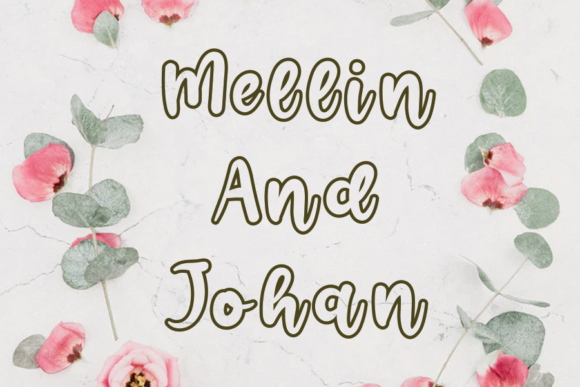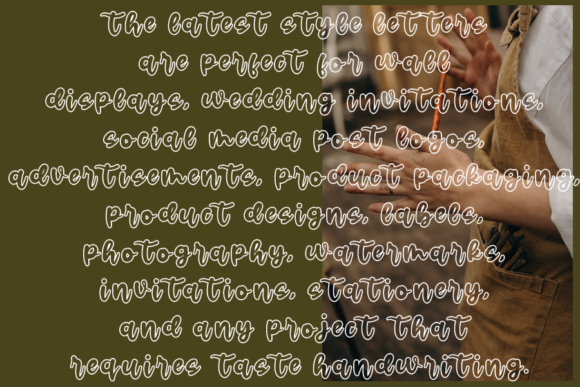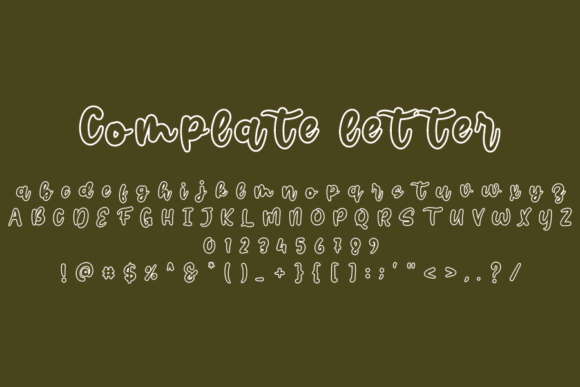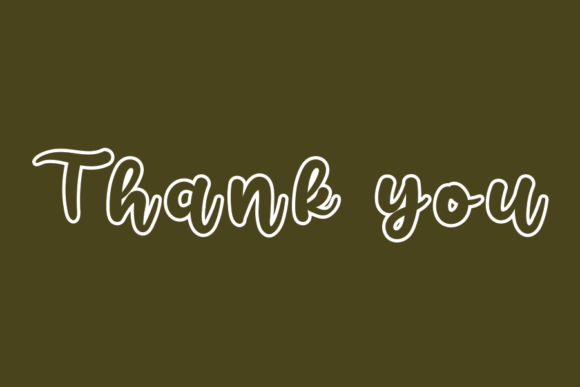
Bollmely Font: Elevate Your Design with Classic Elegance and Modern Twist
In the world of typography, few fonts manage to strike a balance between classic elegance and modern flair. Bollmely, however, achieves this delicate balance with ease, making it a versatile and sought-after font for designers and crafters alike. Inspired by the timeless beauty of classic typography, Bollmely brings its own unique style to the table, ensuring that any design project it touches is elevated to new heights.
The Inspiration Behind Bollmely
Bollmely’s roots lie in the rich history of typography, where classic fonts have been a cornerstone of design for centuries. The creators of Bollmely sought to capture the essence of these traditional fonts while infusing them with a modern sensibility. The result is a font that pays homage to the past while firmly planting itself in the present.
This blend of old and new is what sets Bollmely apart from other fonts. Its classic inspiration is evident in its elegant lines and sophisticated appearance, making it perfect for projects that require a touch of refinement. At the same time, its modern twist ensures that it remains fresh and relevant, capable of standing alongside contemporary design trends.
One of the standout features of Bollmely is its incredible versatility. Whether you’re working on a web design project, creating print materials, crafting moving images, or anything in between, Bollmely is up to the task. Its adaptability makes it an invaluable asset for designers who work across multiple mediums or who need a font that can seamlessly transition from one project to the next.
For web designers, Bollmely’s clean and clear structure ensures that it remains legible even at smaller sizes, making it perfect for body text or headings. In print, its rich and detailed appearance truly shines, adding a level of sophistication to any material it’s used on. When it comes to moving images, Bollmely’s elegant flow and dynamic presence make it a compelling choice for titles, subtitles, and other on-screen text.
Bollmely in Design Projects
So, what makes Bollmely an excellent choice for design projects? The answer lies in its ability to enhance and complement a wide range of design aesthetics. Whether you’re going for a minimalist look, a vintage vibe, or a modern edge, Bollmely fits right in. Its neutral yet distinctive style allows it to support and elevate the overall design without overpowering it.
For designers, this means that Bollmely can be a go-to font for a variety of projects. Need a font for a luxury brand’s logo? Bollmely’s got you covered. Looking for something that will add a touch of class to a website’s header? Bollmely is up to the task. Its wide range of applications makes it a valuable addition to any designer’s toolkit.
Crafting with Bollmely
But Bollmely isn’t just for designers. Crafters and DIY enthusiasts who enjoy lettering, journaling, and other paper crafts also have a lot to gain from this beautiful font. Its elegant appearance makes it perfect for adding a personal touch to handmade cards, scrapbooking pages, and journal entries.
With Bollmely, crafters can easily create stunning pieces that stand out. Whether you’re making gifts for friends and family or selling your creations online, using Bollmely can help elevate your work and make it more visually appealing.
Bollmely is more than just a font; it’s a design companion that brings a unique blend of classic charm and modern sophistication to any project. Its versatility, elegance, and adaptability make it an excellent choice for designers and crafters looking to add a touch of refinement and personality to their work.
Whether you’re working on a professional design project or crafting something for fun, Bollmely is sure to make a lasting impression. With its timeless beauty and contemporary flair, Bollmely is poised to become a favorite in the world of typography.